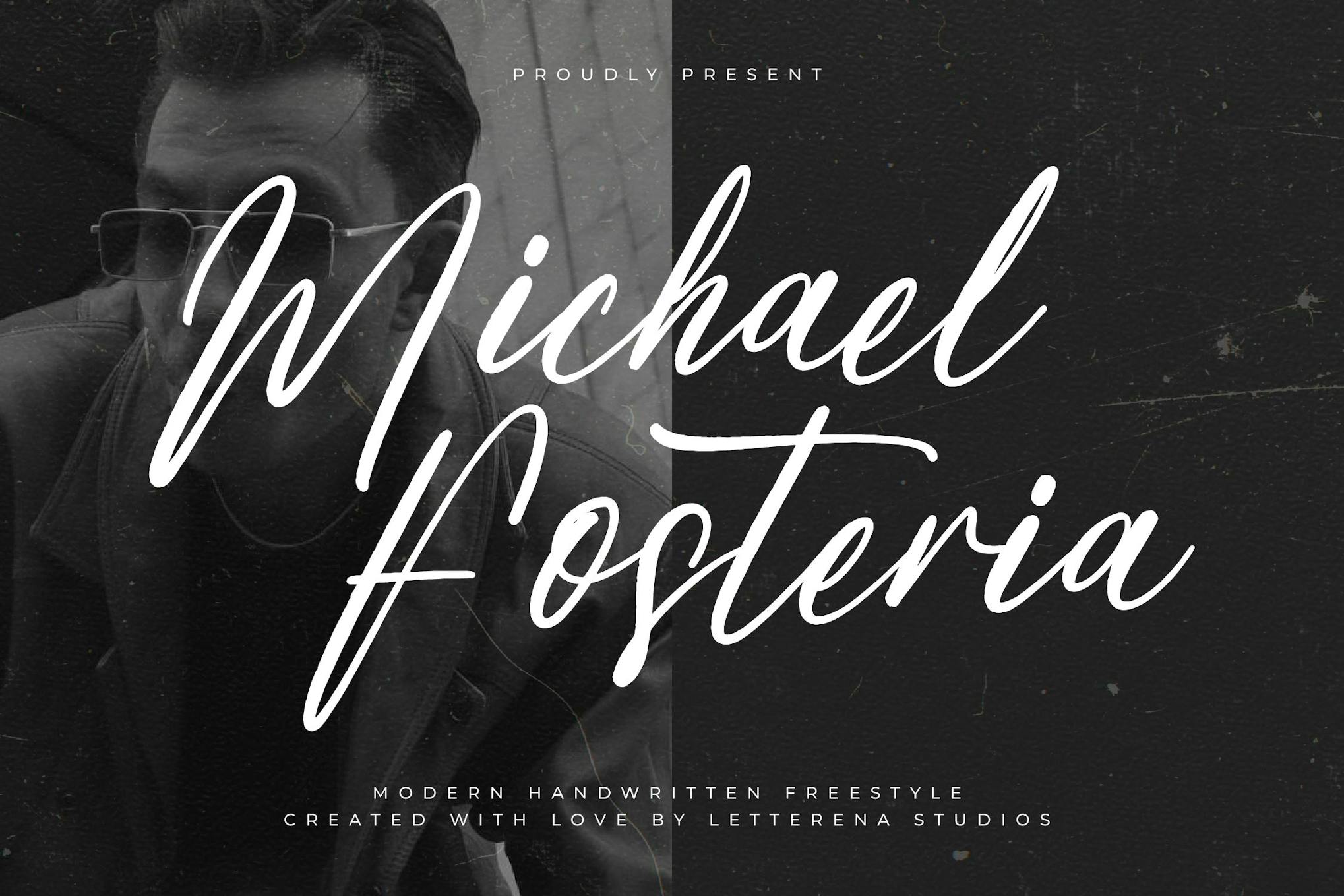
Michael Fosteria Modern Handwritten Freestyle Font
Michael Fosteria Modern Handwritten Freestyle Font Free Download offers a perfect blend of modern elegance and authentic, handwritten charm. While you can download this font for free for testing purposes, for commercial use, you must purchase this font to unlock its full creative potential. This versatile typeface is perfect for a wide range of creative projects, including personal branding, stylish social media posts, elegant menu designs, fashion lookbooks, and custom invitations. What makes this font so exciting is its effortless, hand-drawn feel and its dynamic, freestyle flow, which gives your designs a personal, artistic touch that feels both genuine and sophisticated. The Michael Fosteria Modern Handwritten Freestyle font family includes a range of styles and features, such as a Regular script, a more refined Bold version, and a collection of swashes and alternates, providing a complete and flexible design solution.
This isn’t just a font; it’s an artistic statement. The design of Michael Fosteria Modern Handwritten Freestyle is inspired by a blend of authentic hand-lettering and a sophisticated, carefree aesthetic. Its distinctive, fluid strokes and natural connections between characters ensure that your headlines and titles will be both memorable and highly engaging. Whether you’re a designer crafting a brand identity that needs to be chic and approachable, or a creative working on a project that adds a touch of bespoke elegance, this typeface provides the perfect foundation. The carefully crafted letterforms and authentic texture create a harmonious flow that is easy on the eyes and aesthetically pleasing in any context.
The versatility of the Michael Fosteria Modern Handwritten Freestyle font family is one of its greatest strengths. You can use the regular script for an authentic, handcrafted feel and the bold version for headlines that stand out with a confident, personal touch. The included swashes and alternates allow you to customize your text and create unique typographic compositions that feel bespoke and original. This flexibility makes it an invaluable asset for designers who need to create custom content that feels both contemporary and genuine. It's a font that works hard, delivering a look that is both stylish and full of character, ensuring your designs always make a sophisticated impression.